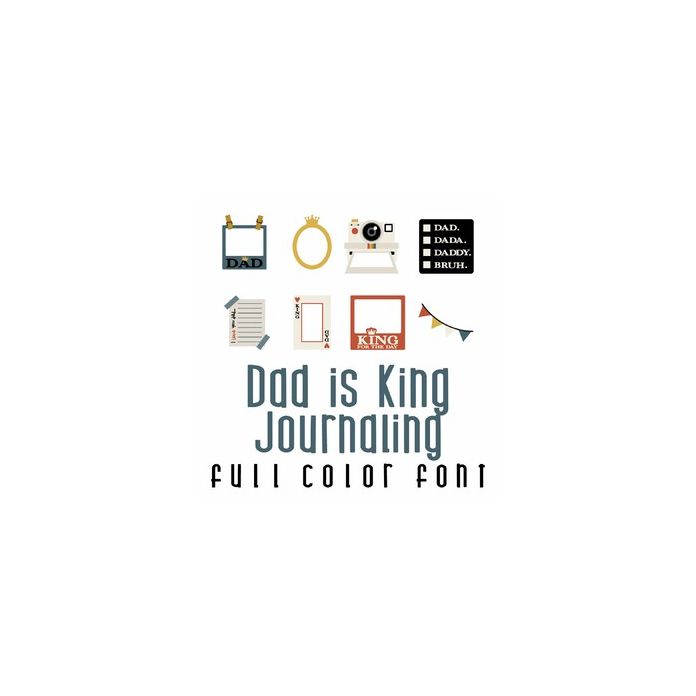
This adorable full-color doodlebat font features 26 journaling images perfect for the father figure in your life, this set is perfect for cards, crafts, gifts, parties, planner stickers, scrapbook pages and more!